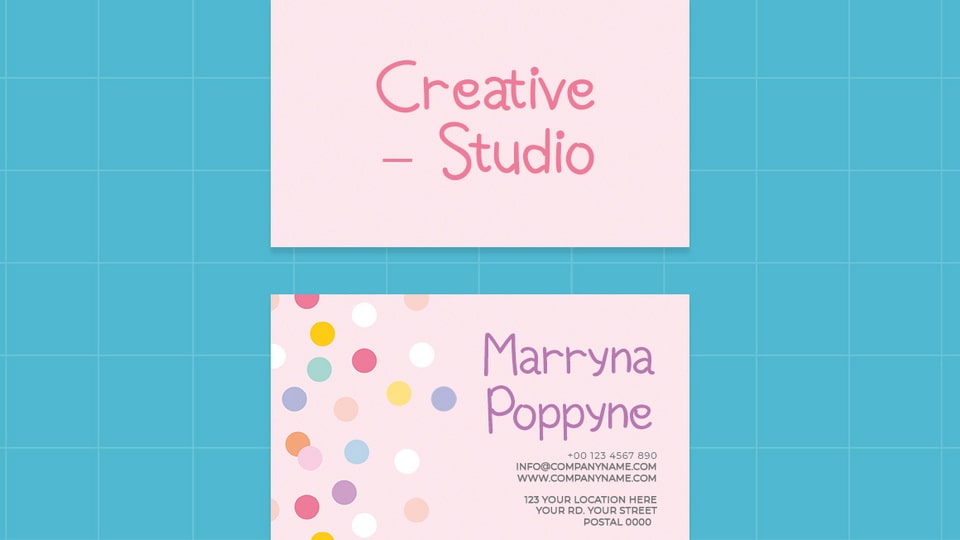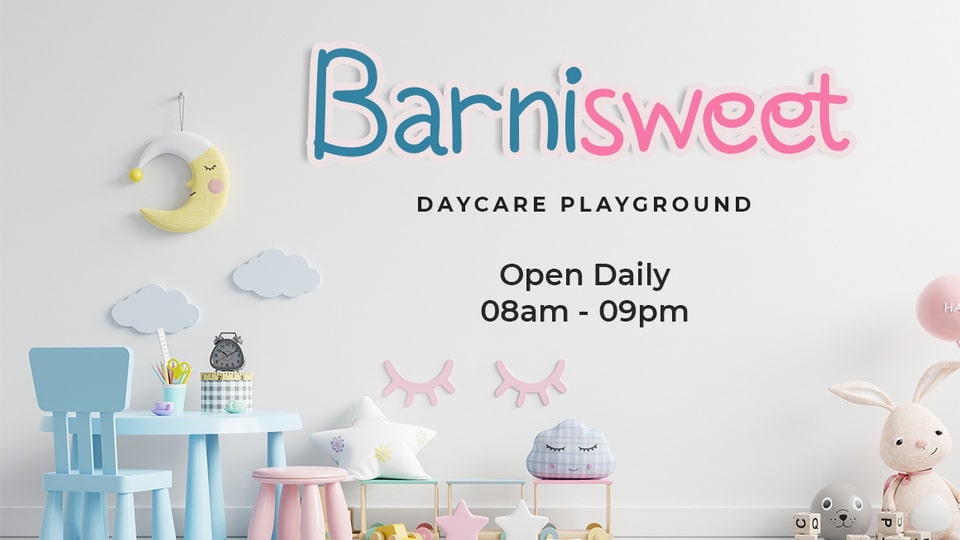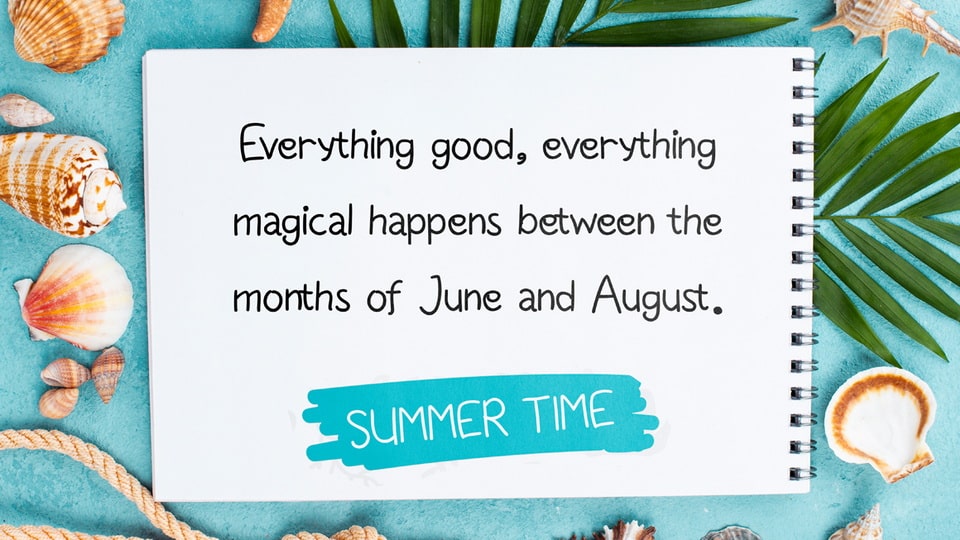
Blue Bubbles Font
Blue Bubbles is a cute and playful hand-drawn font that radiates joy and whimsy with every stroke. Inspired by the carefree doodles of childhood, this font captures the essence of playful creativity in a simple and charming style.
With its simple and approachable design, Blue Bubbles font is perfect for adding a touch of playfulness to a wide range of design projects. Whether you’re creating greeting cards, posters, children’s books, or social media graphics, this font adds a dose of cheerful charm to your text.